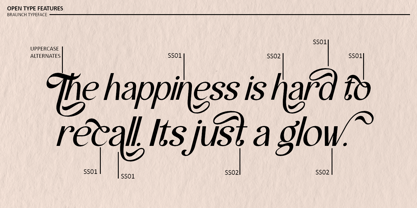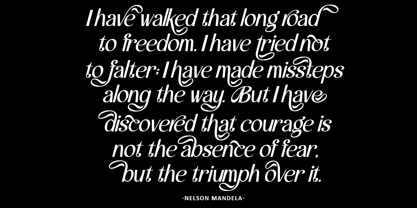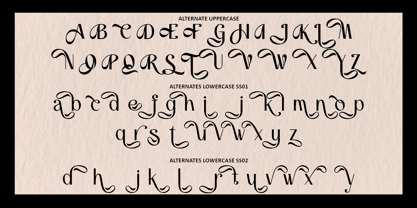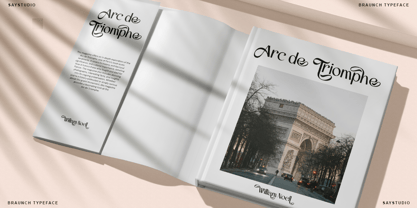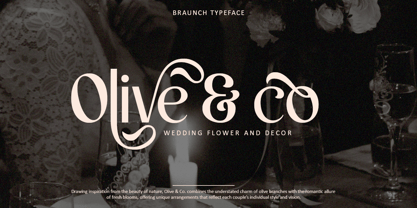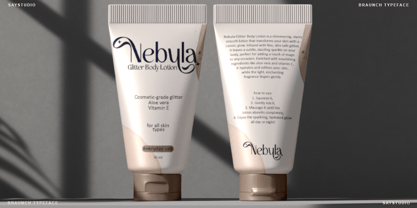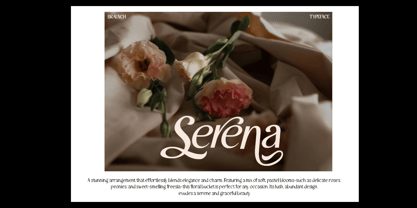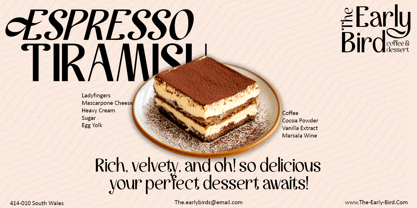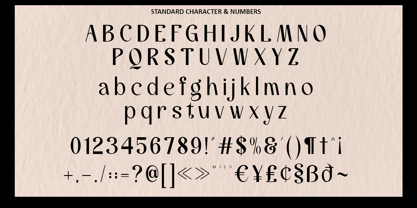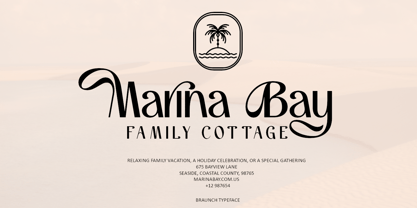
Braunch
by Say Studio
The Braunch Font Family was designed by Mussyayin and published by Say Studio. Braunch contains 2 styles and family package options.
Braunch is sans serif font with luxury and elegant style with a unique modern typeface with beautiful character alternates. Braunch Ideal for posters, magazines, and print designs, brings a touch of sophistication and cool luxury vibes to every project.
- Braunch Regular
- Braunch Italic
- 70+ Alternates
- Multilingual Support
Designers: Mussyayin
Publisher: Say Studio
Foundry: Say Studio